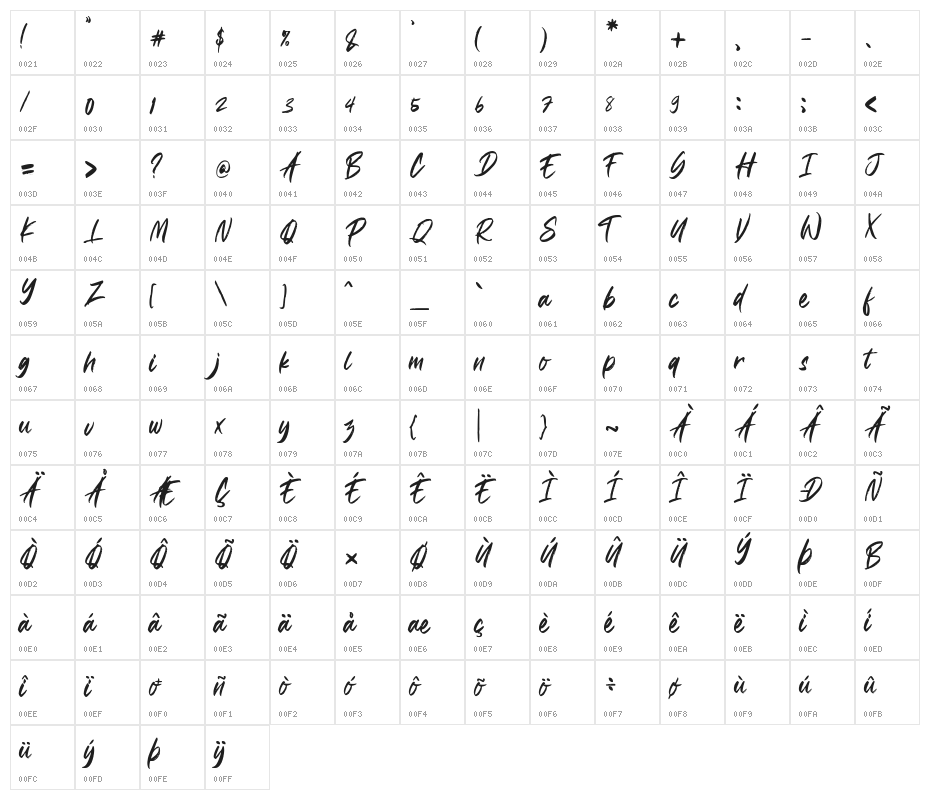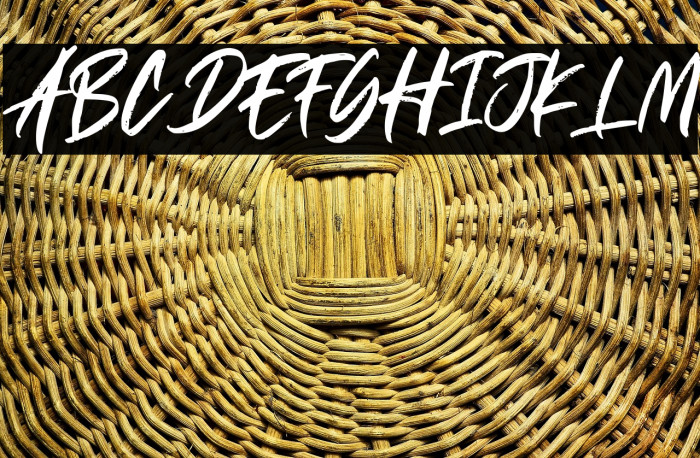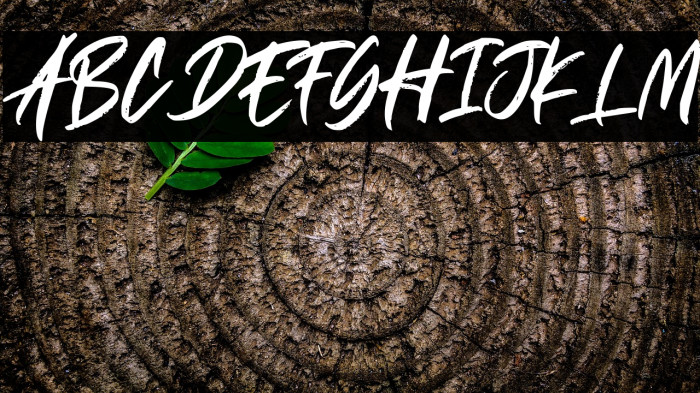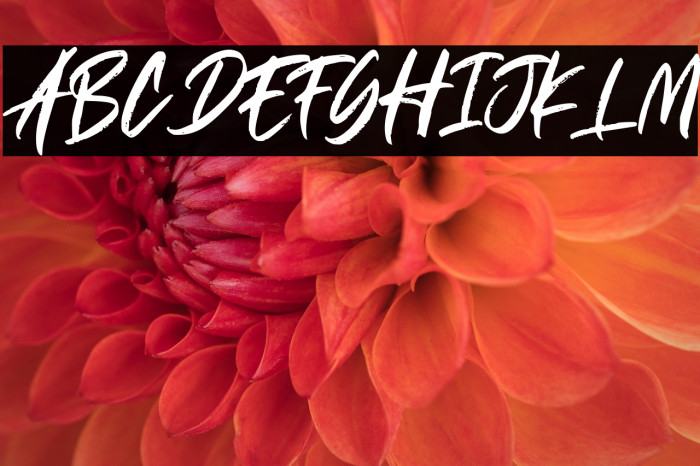
Padrox Font
Padrox Description
This font exudes a bold and energetic style, characterized by its brush-like strokes and dynamic flow. The uppercase letters are particularly striking, with a sense of movement and flair that suggests a handwritten quality. The lowercase letters maintain this fluidity, offering a cohesive look throughout. Numbers and special characters are crafted with the same attention to detail, ensuring consistency across all elements. The font's overall appearance is both modern and expressive, making it ideal for projects that require a personal touch or a creative edge.
| Use Case | Logos, Headlines, Posters |
| Proposed Projects | Ideal for branding, posters, social media graphics, and creative projects that require a bold, personal touch. |